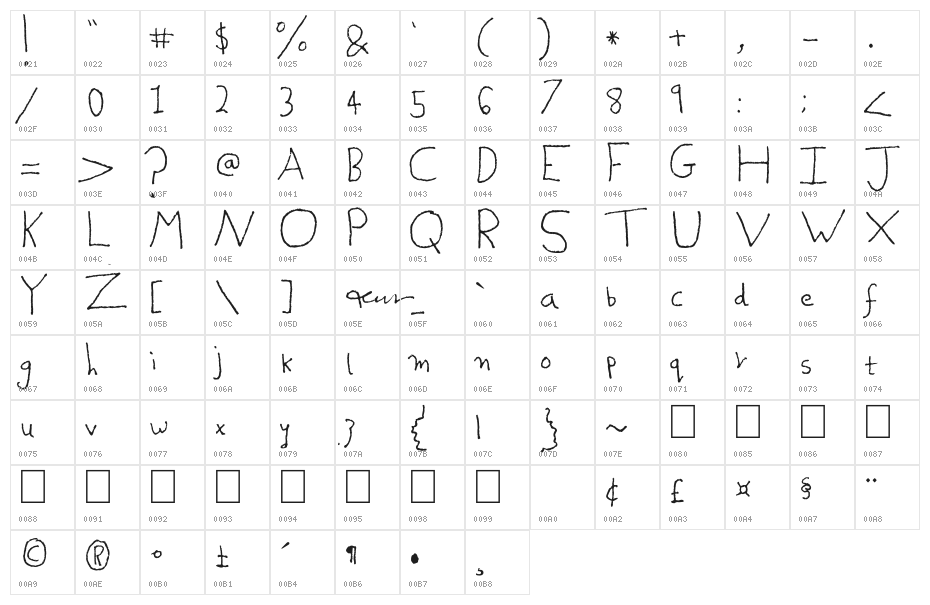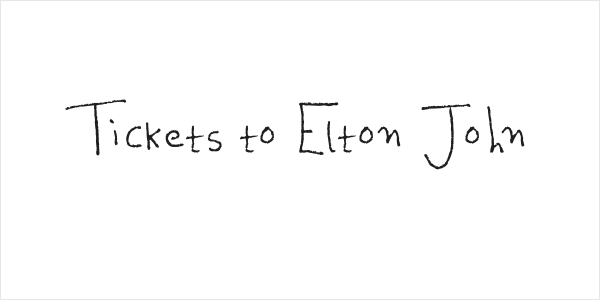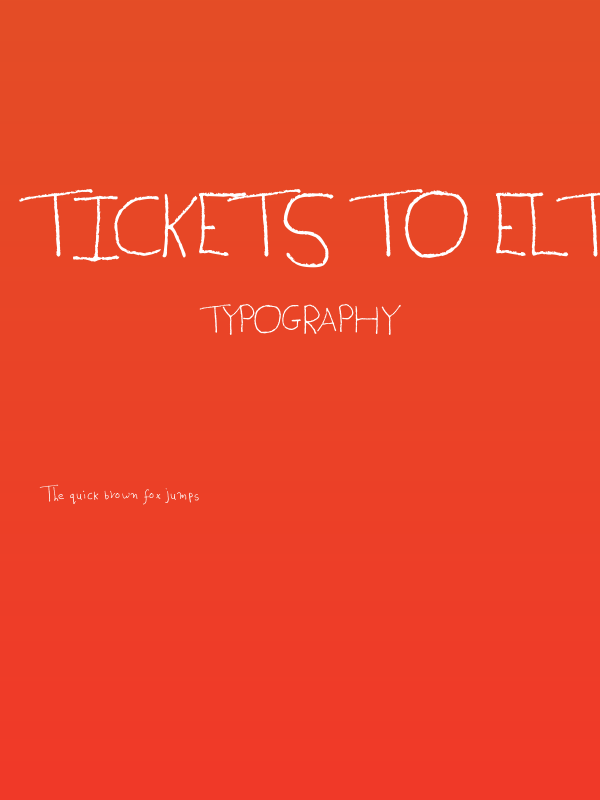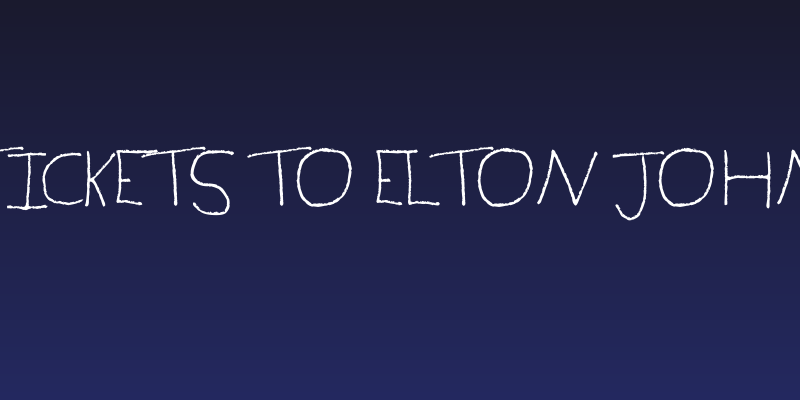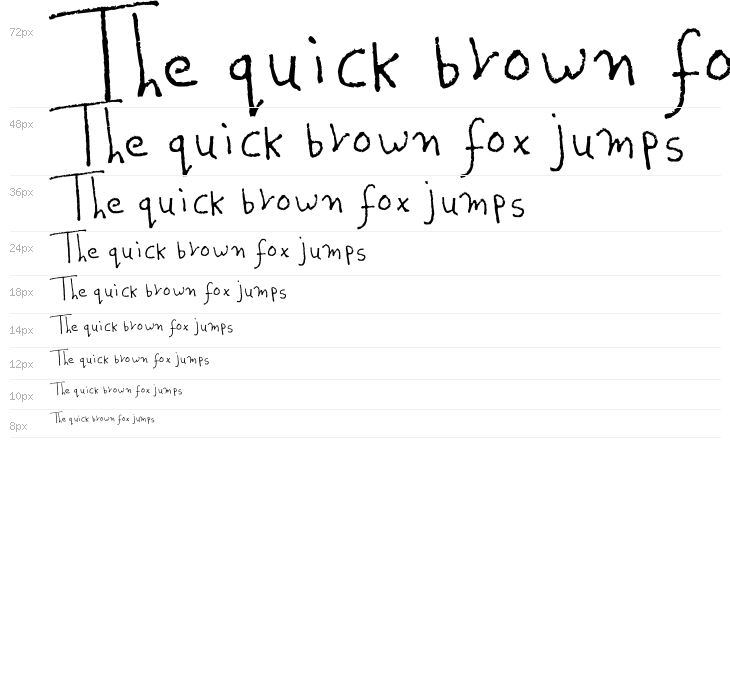
Tickets to Elton John Font
Tickets to Elton John Description
This font exudes a playful and casual handwritten style, characterized by its irregular and organic strokes. The letters have a slightly uneven baseline, adding to the informal and spontaneous feel. The uppercase and lowercase letters maintain a consistent style, with rounded edges and a natural flow. Numbers and special characters follow the same aesthetic, ensuring a cohesive look across all glyphs. The font's charm lies in its simplicity and the personal touch it conveys, making it ideal for projects that require a human and approachable feel.
| Use Case | Headlines, Informal text, Personal projects |
| Proposed Projects | Ideal for greeting cards, personal notes, children's books, and informal branding. |